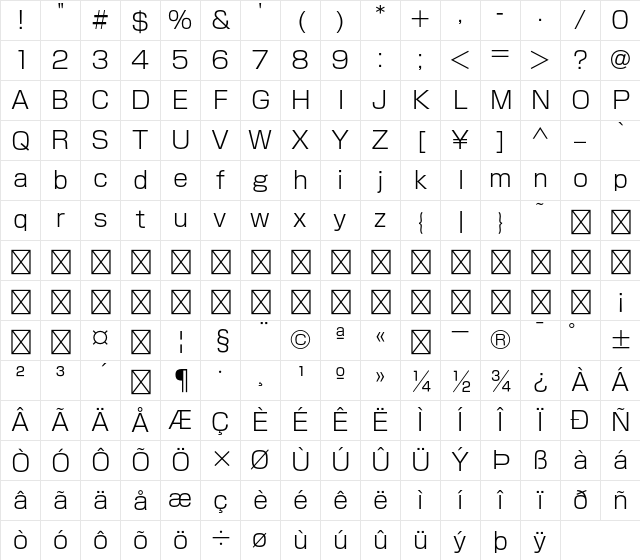
Complete U-OTF Shin Go Upr L glyph index. Displaying only characters natively supported by U-OTF Shin Go Upr L font.
U-OTF Shin Go Upr is a composed and adaptable typeface that performs quietly and consistently across a wide range of design contexts.
Pro Tip: Use U-OTF Shin Go Upr in both headline and body roles to test its range before committing to a single application.